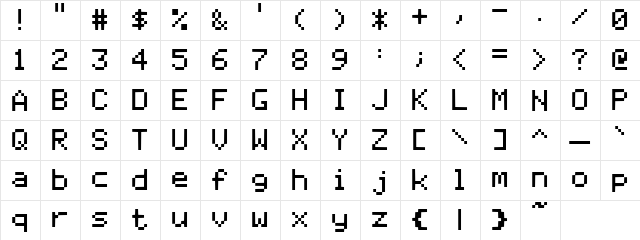
AppleII Regular Font Preview
AppleII Regular
Design Context for AppleII Typeface
AppleII offers clean, dependable letterforms without strong stylistic allegiance, making it a practical choice for designers who need flexibility.